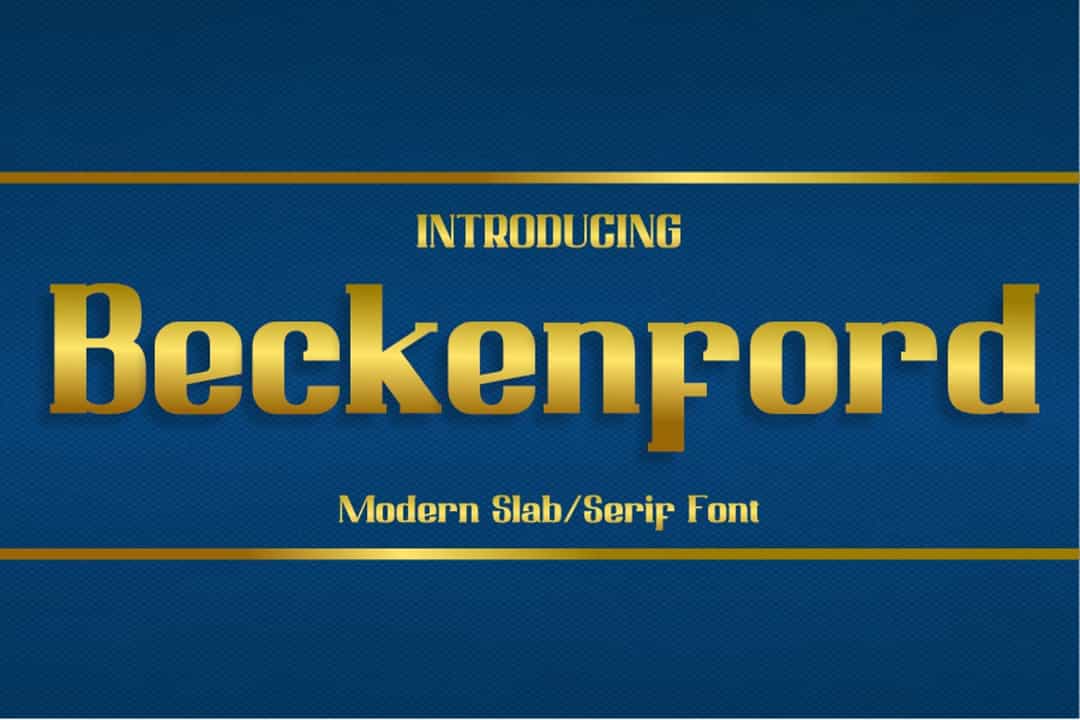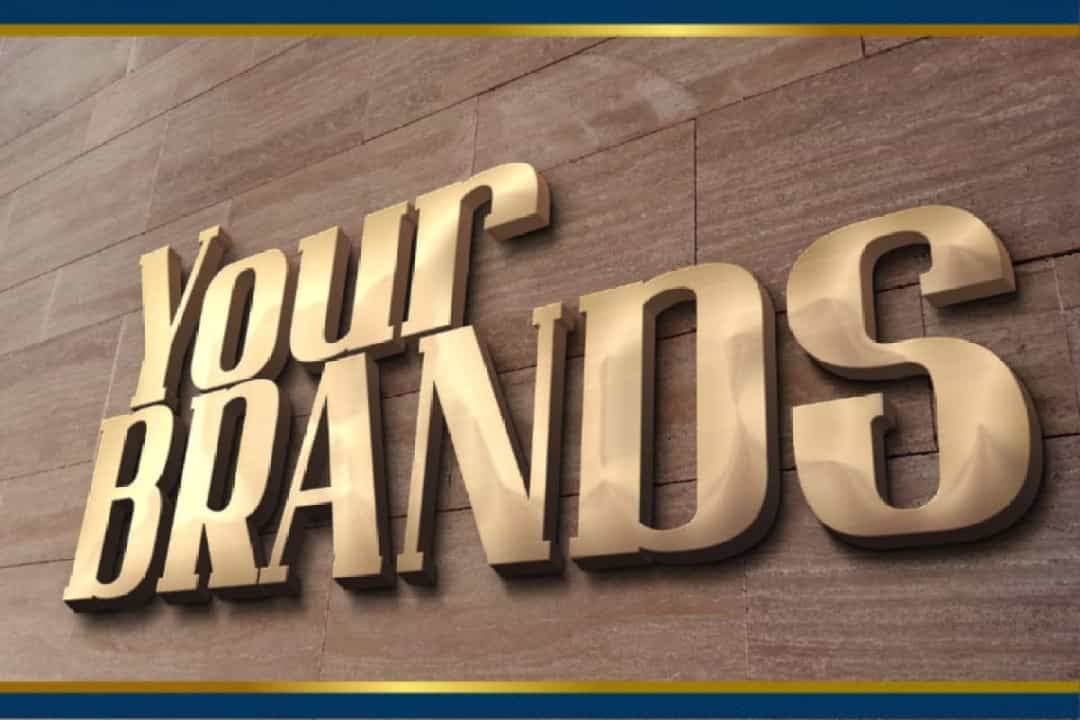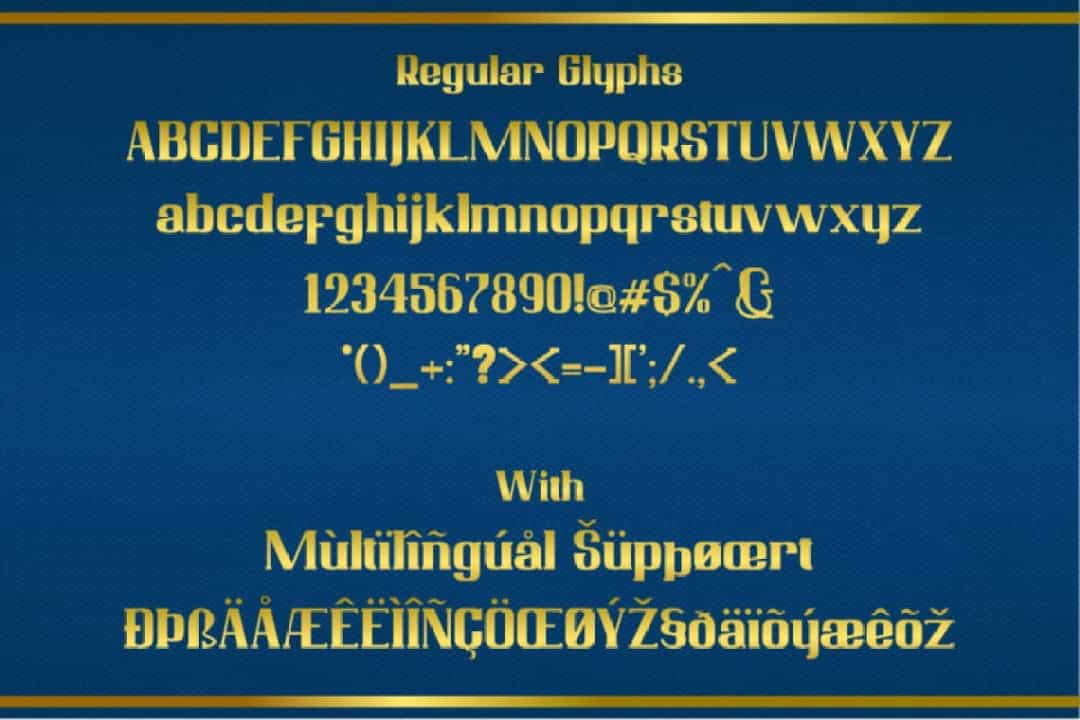
Beckenford Font
Beckenford can be described as an elegant Modern Slab Serif Font. Beckenford features an eye-catching large slab/serif font style which exudes style with classic qualities and mature features that give your work or design an authoritative, serious, or distinguished feel.